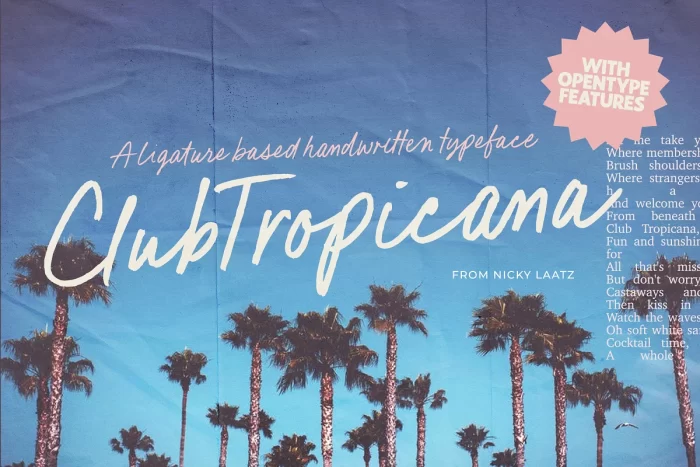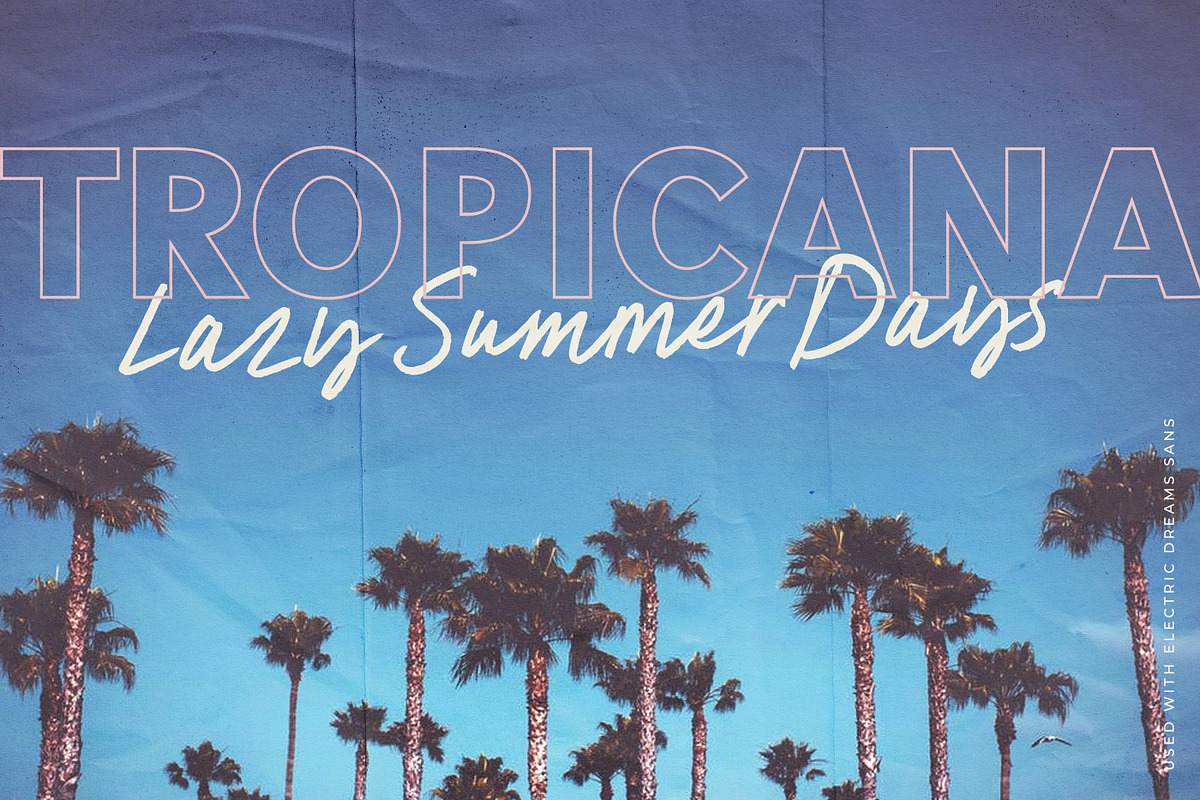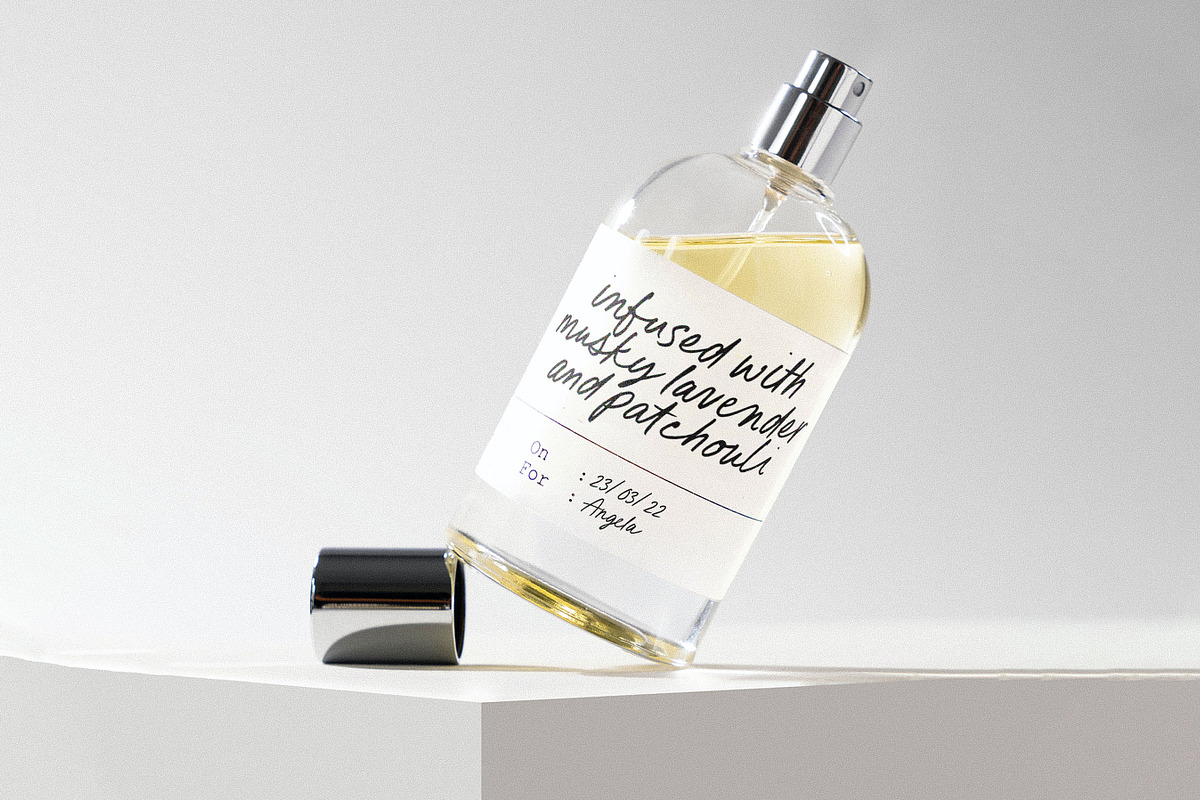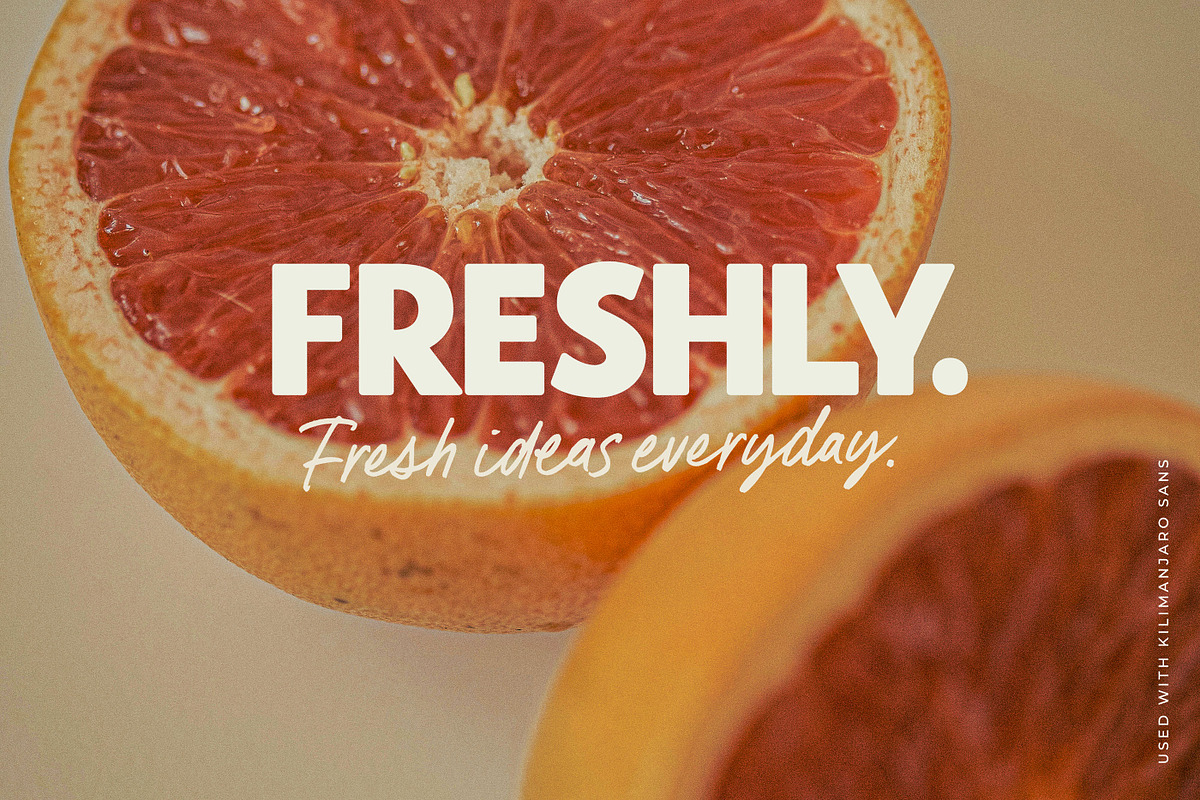
Say hello to Club Tropicana! – An inky and imperfect handwriting script font with 105 extra Opentype ligatures and alternates to add to its naturally handwritten look.
Make sure you have your OpenType Ligatures turned on to see the magic as you type. A lighter version of the original thicker script is included for where you need a lighter feel.